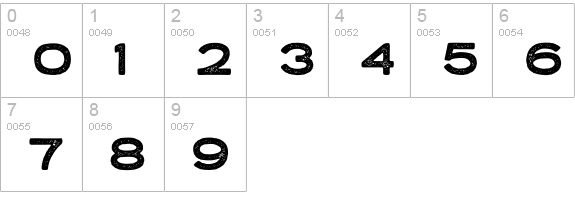
Porter Sans Ink Font Details
Porter Sans Ink is a modern and stylish font that exudes a sense of sophistication and creativity. With its unique inked look, this typeface adds a touch of edginess to any design project. The rough edges and uneven strokes give Porter Sans Ink a handcrafted and authentic feel, making it perfect for branding, packaging, and editorial design. What sets Porter Sans Ink apart is not only its visual appeal but also its versatility. Whether you're looking to create eye-catching headlines or elegant body text, this font has got you covered. Its bold and dynamic presence commands attention while still maintaining a sense of refinement and elegance. The best part? Porter Sans Ink is available for free download at FontsMarket.com, making it accessible to designers and creatives of all levels. So why wait? Add a touch of flair to your next project with Porter Sans Ink and make a bold statement that truly stands out.